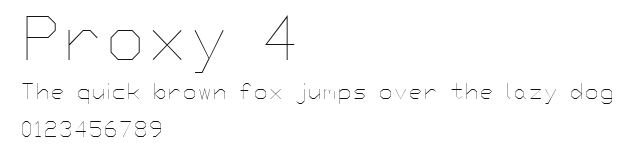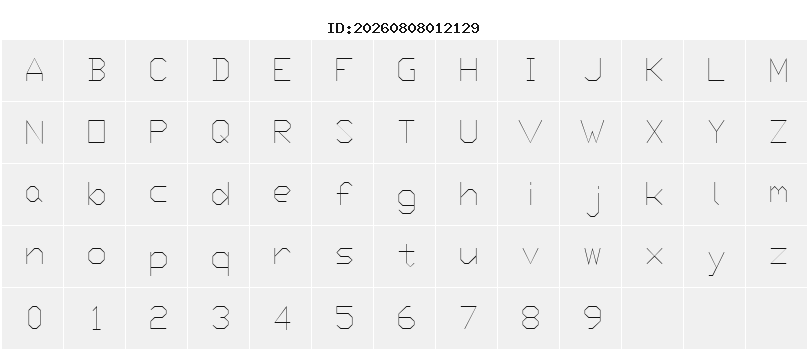
• Font Name: Proxy 4
• Full Font Name: Proxy 4
Proxy 4.ttf is a modern, elegant sans-serif font designed for ultimate readability and visual harmony. Perfect for branding, headlines, web design, and print materials.